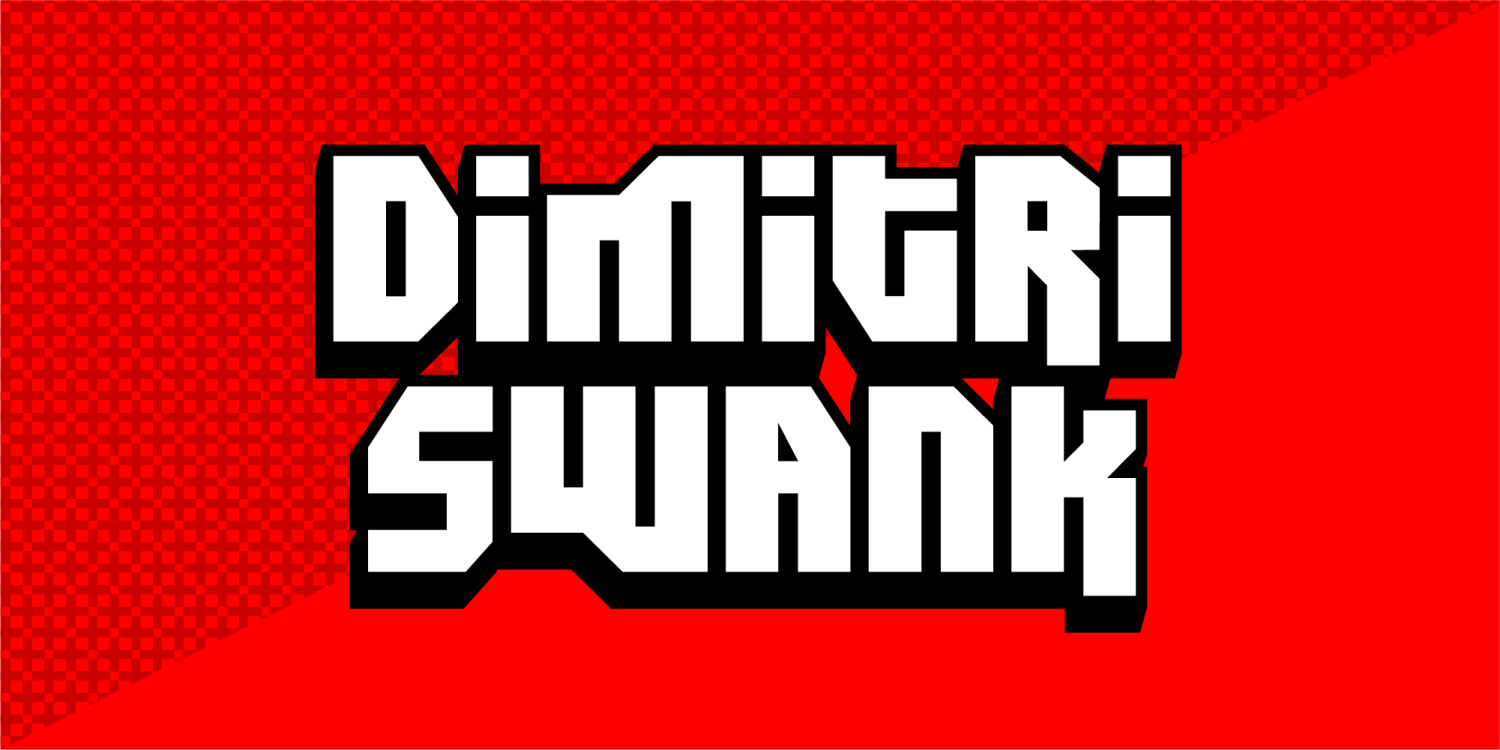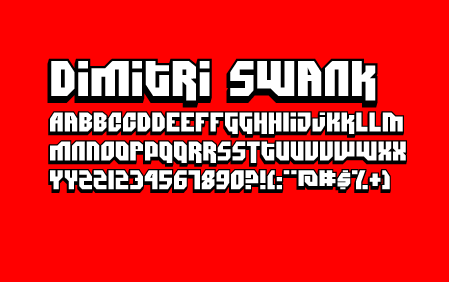
Dimitri Swank
Dimitri Swank is tasty. It is the souped up version of plain ol' Dimitri. You see, these days, "souping up" a font requires a little more than the average la-dee-da. You've got to bring in the serious yamma-yamma. That's what I did here.